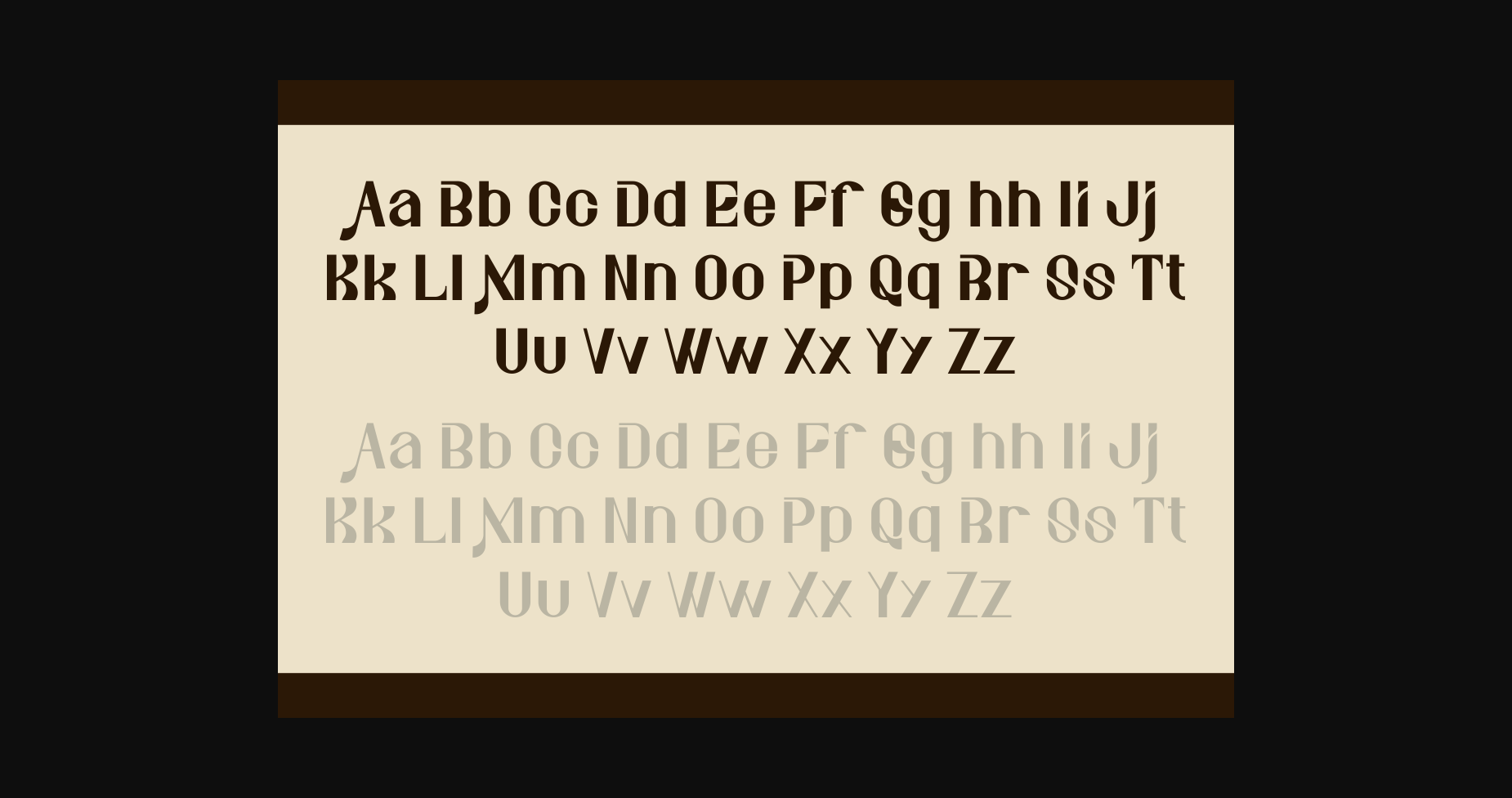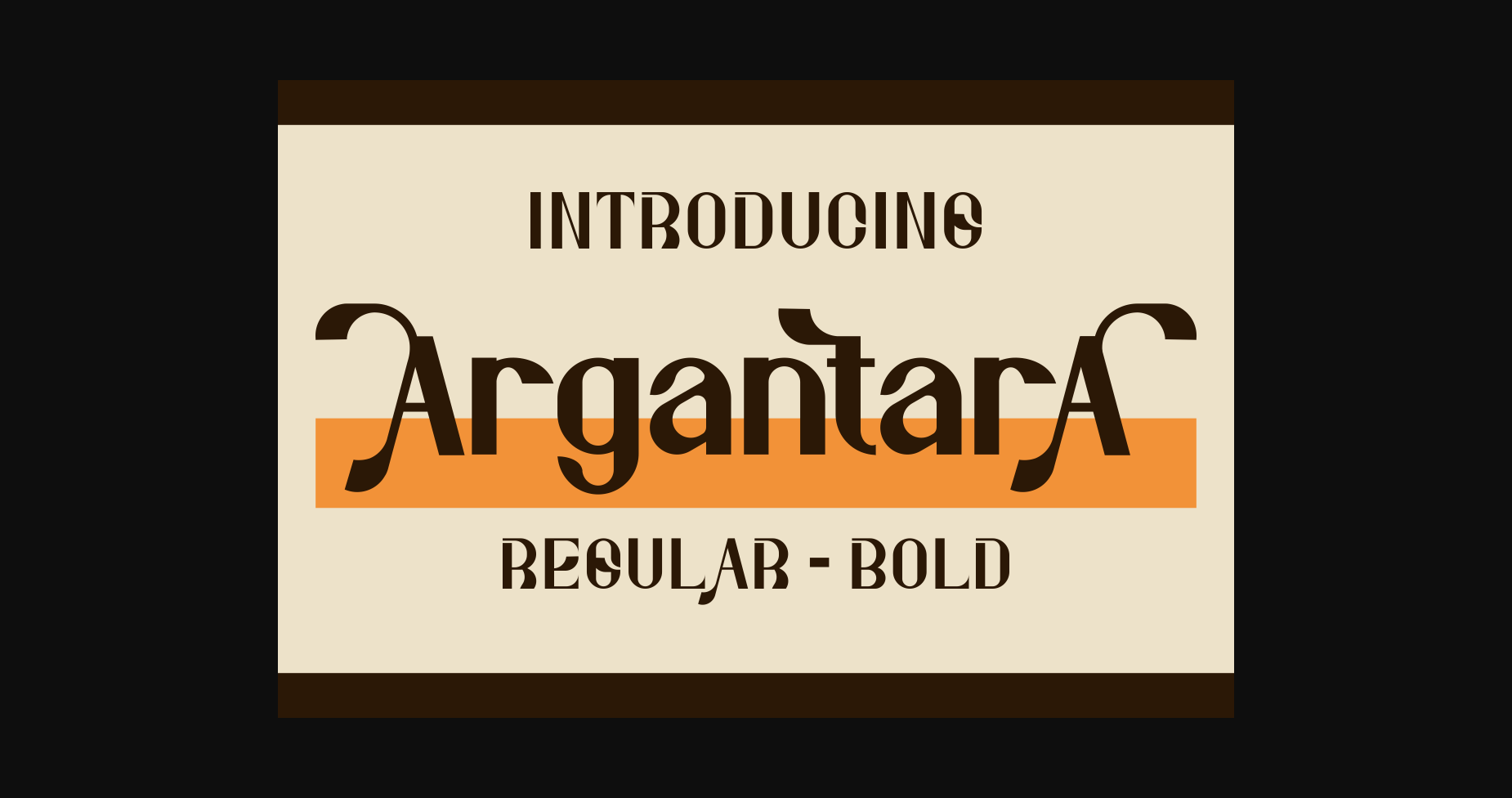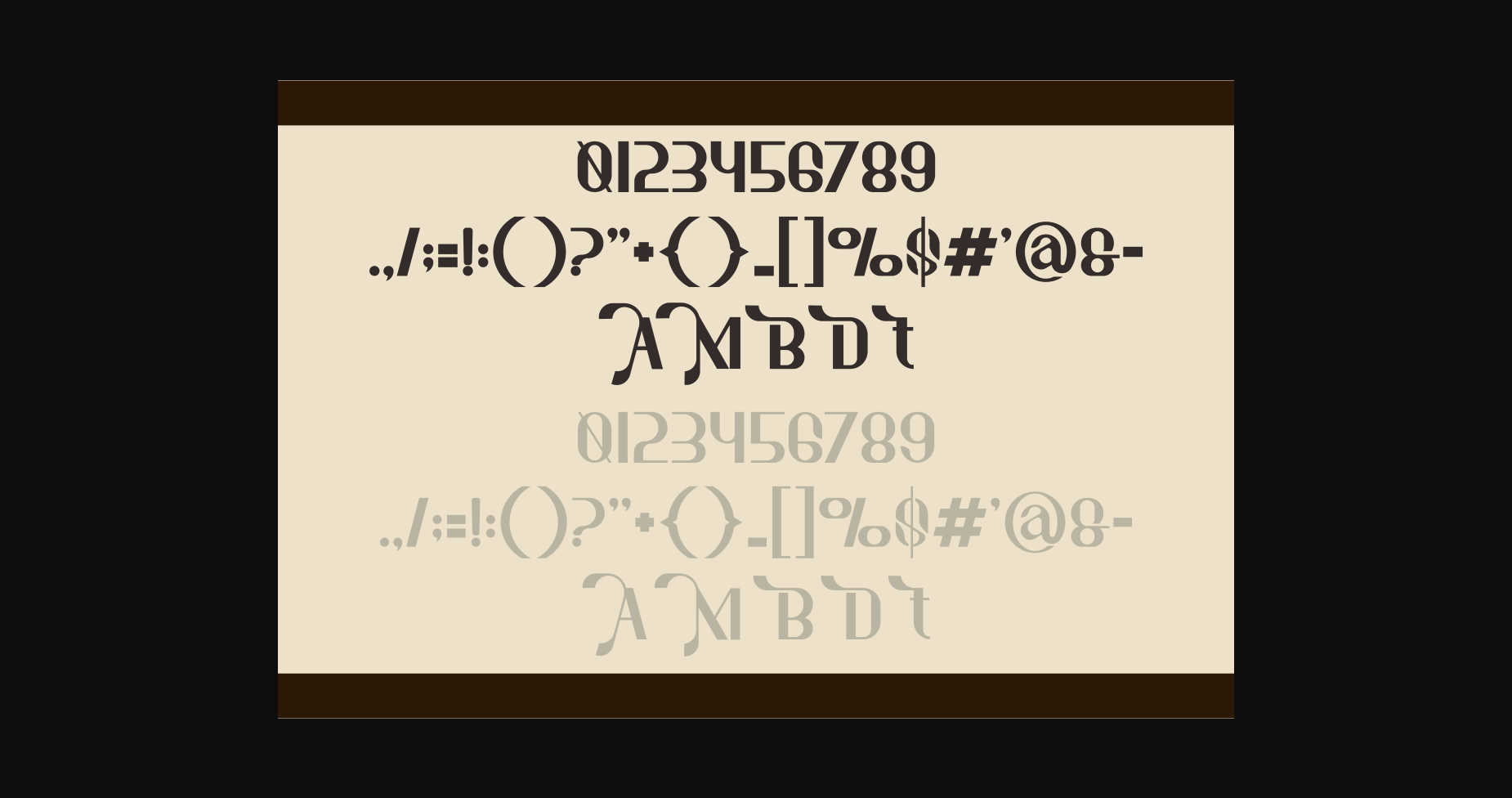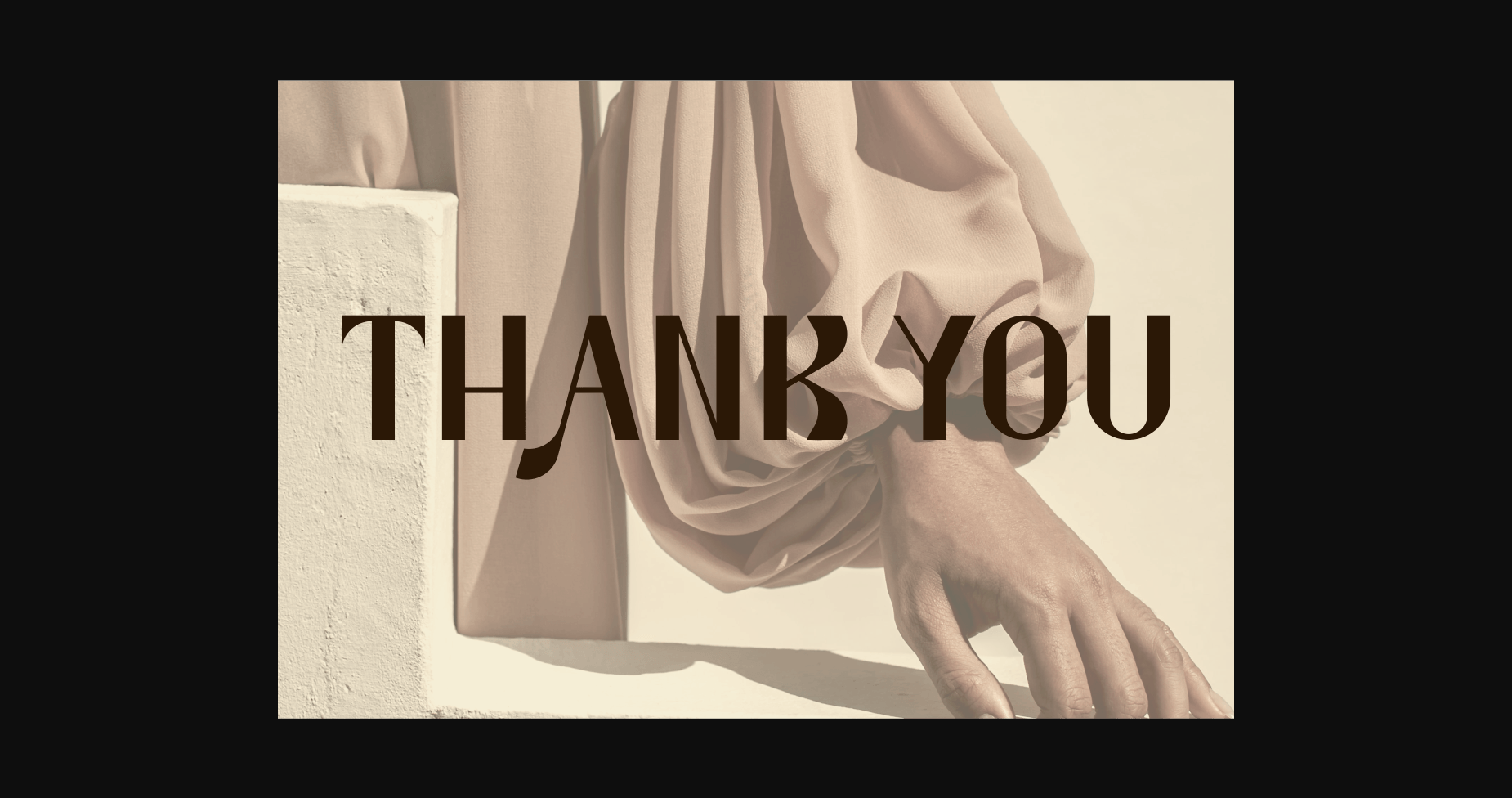
Argantara Font
About Argantara Font
Argantara is a bold and authentic sans serif font suitable for any branding project like logo, t-shirt printing, product packaging, and more. It looks outstanding in a wide range of contexts.